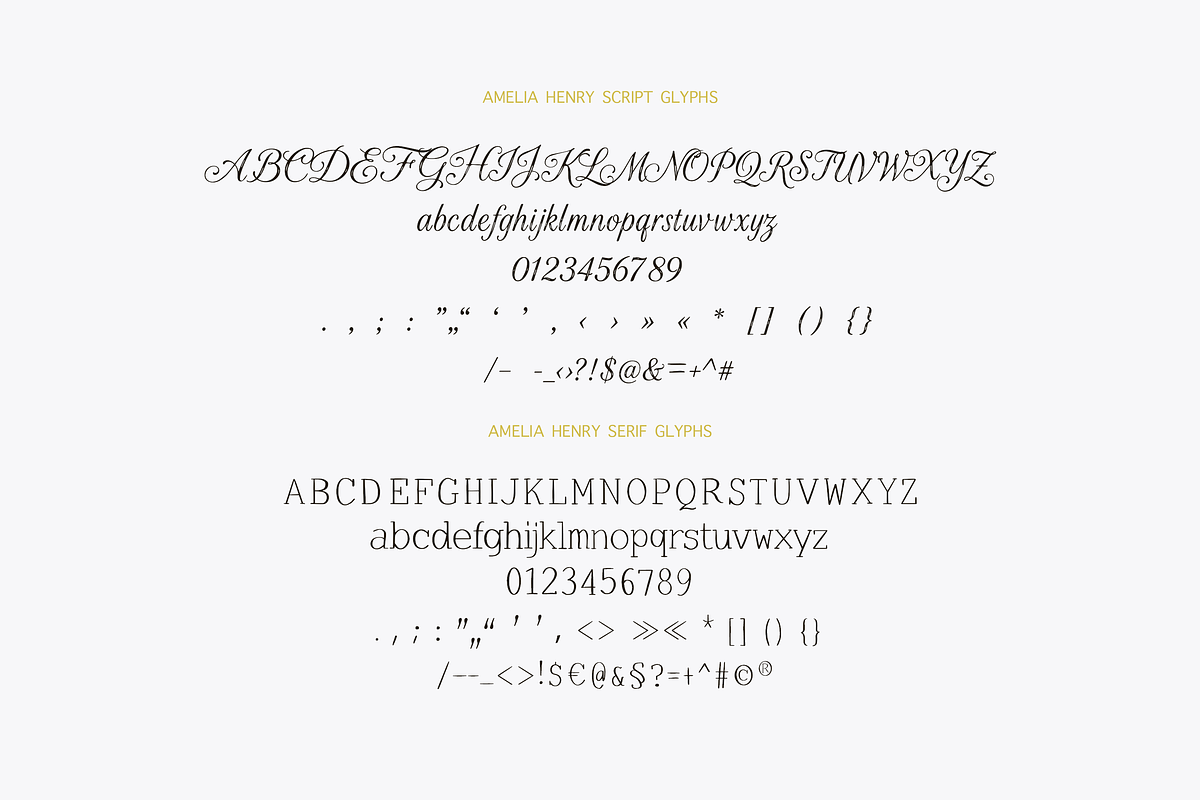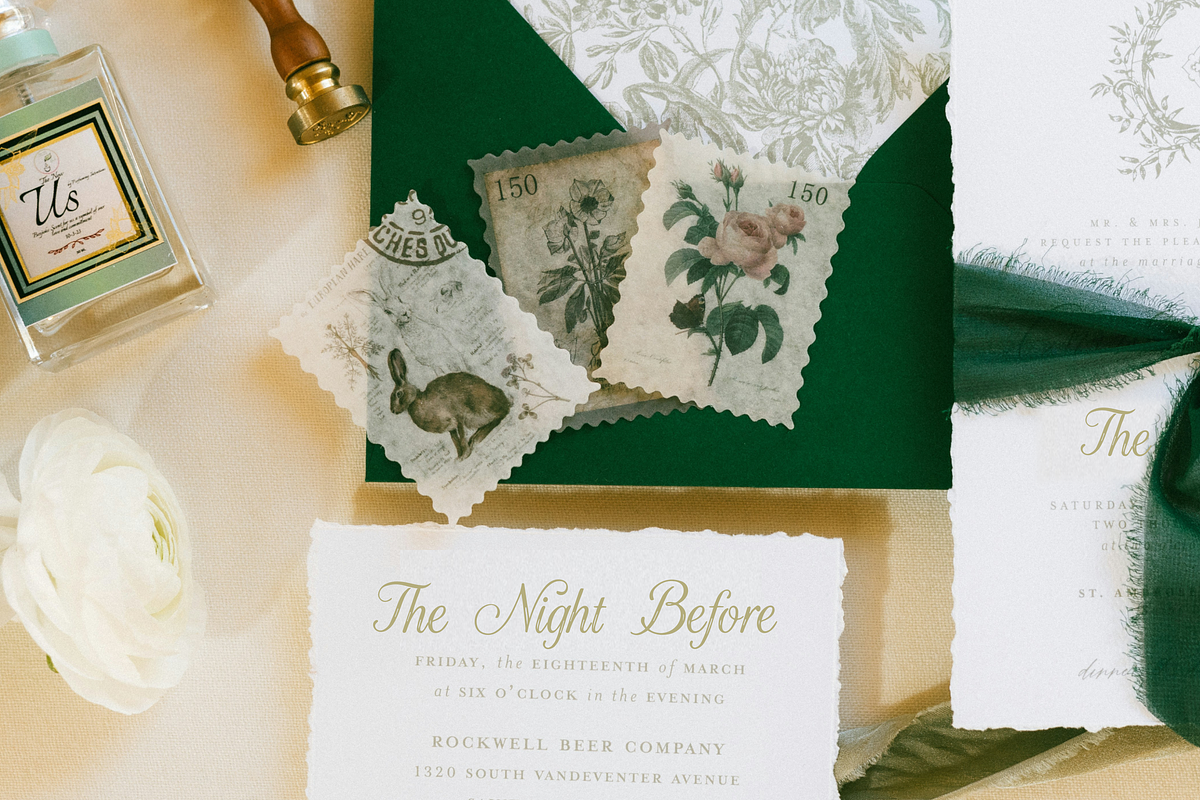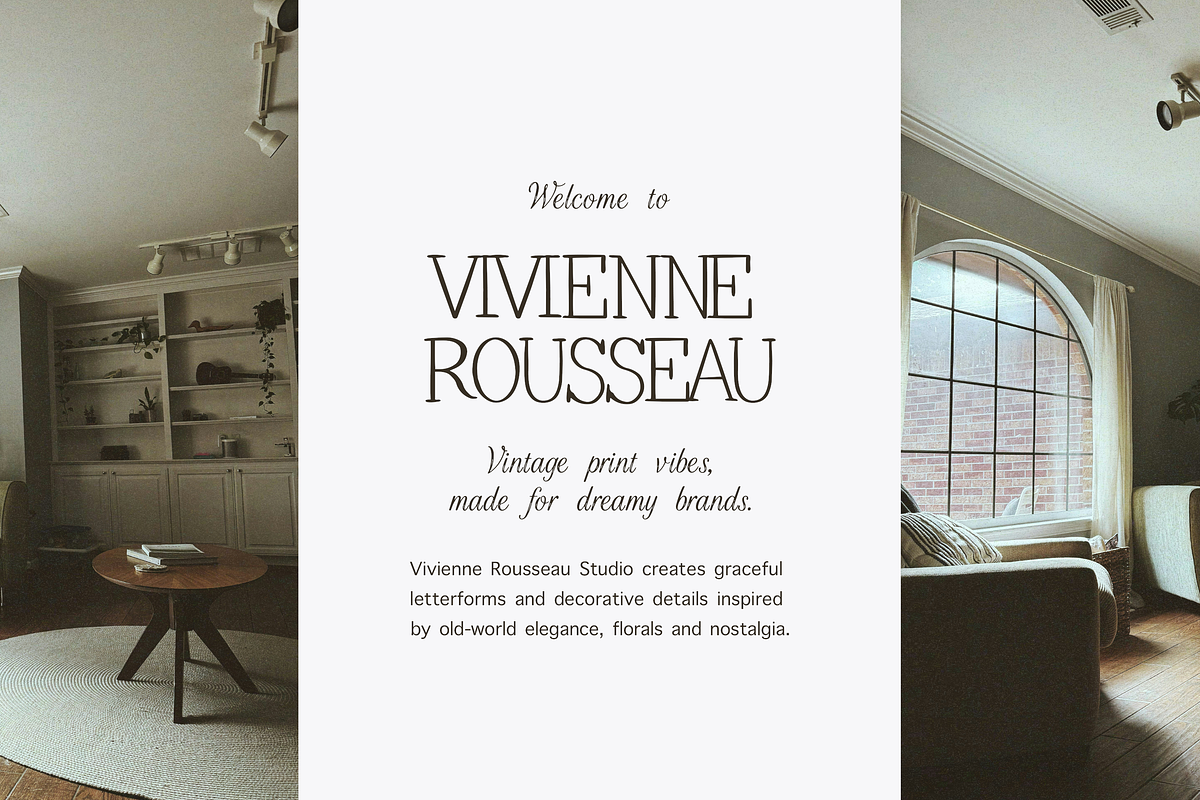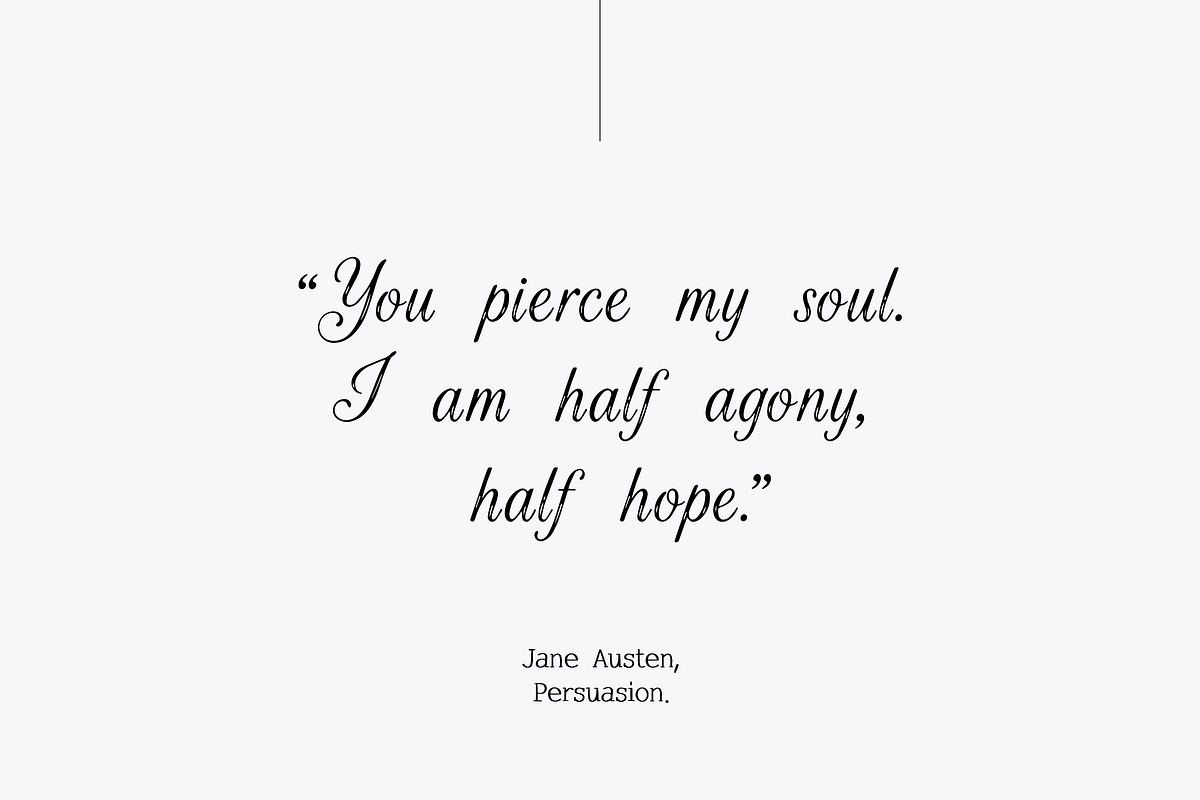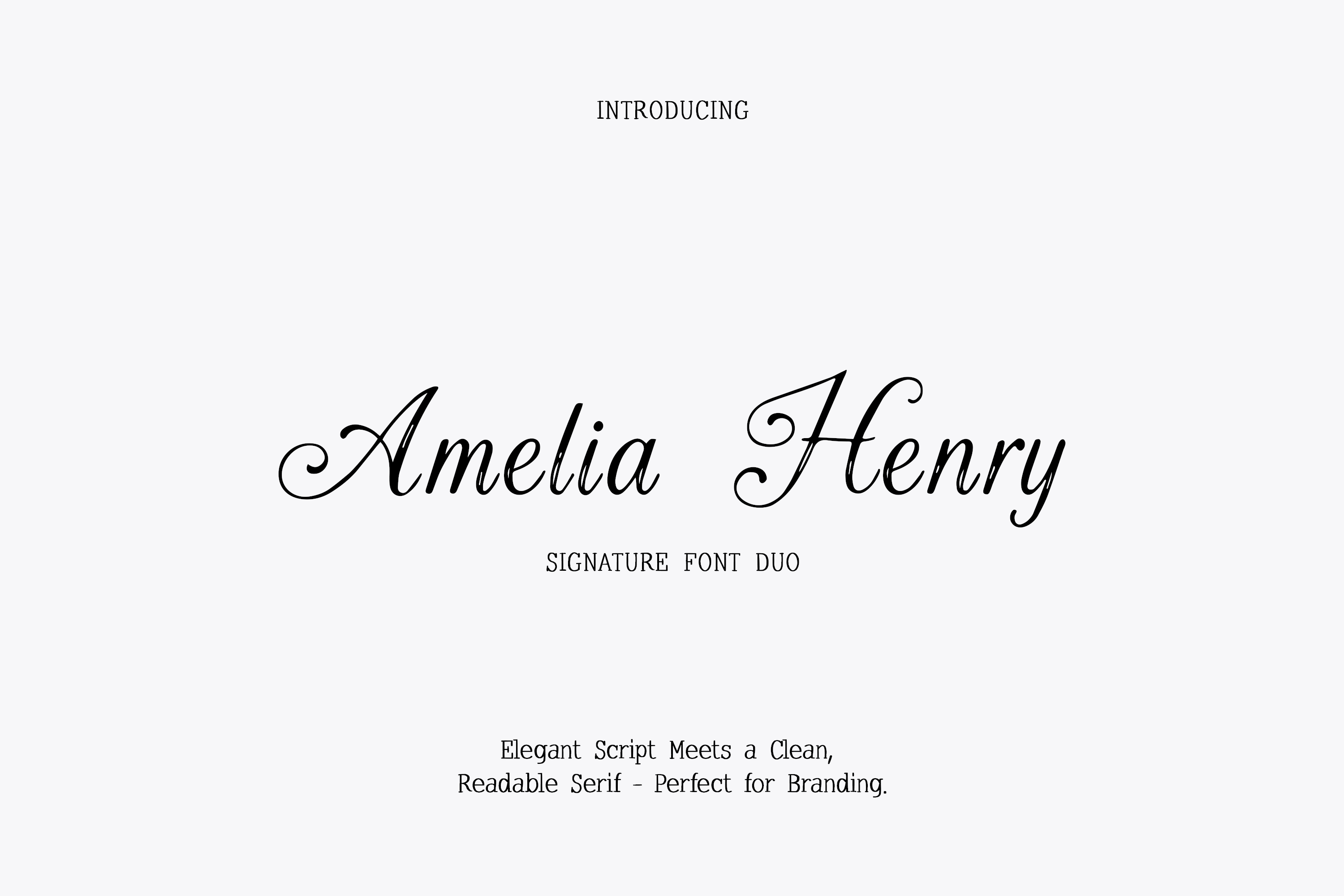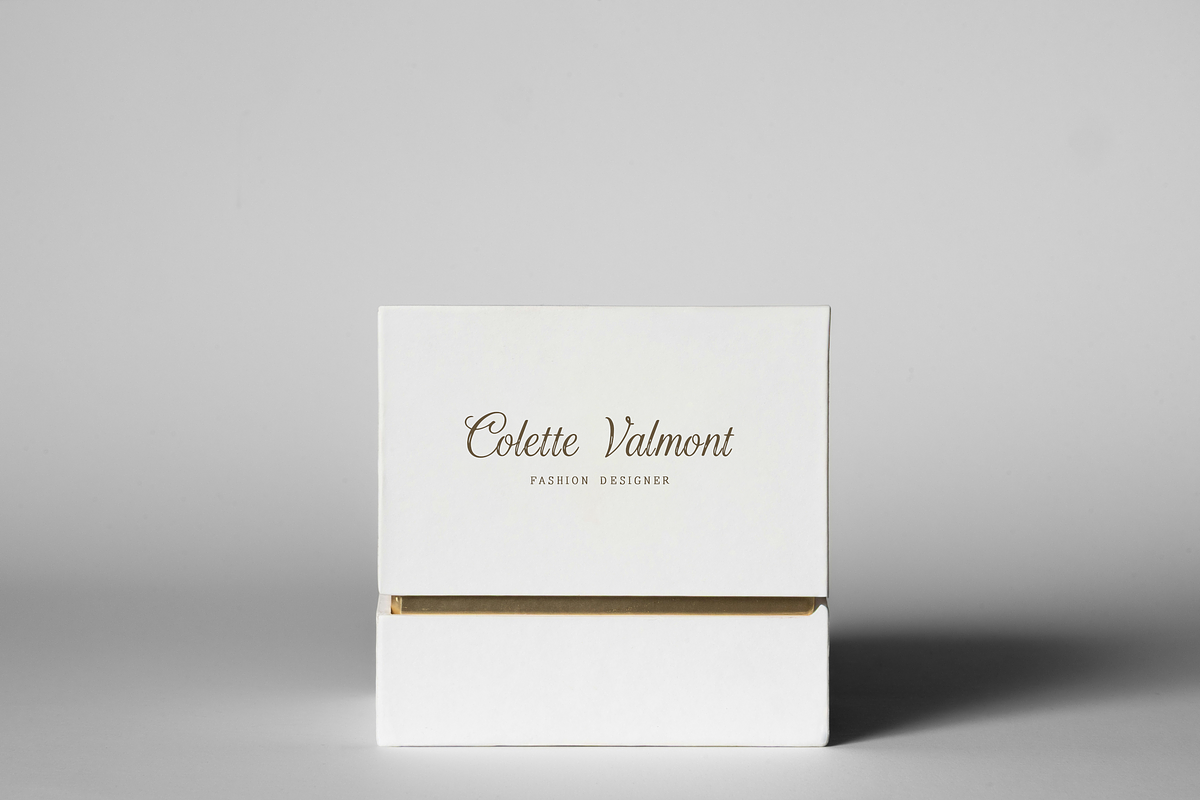
Amelia Henry | Signature Font Duo
Amelia Henry is a refined signature font duo designed to elevate modern branding with timeless elegance. It pairs a graceful calligraphy script with a clean, readable serif - made to complement each other beautifully in logos, packaging, and stationery.
Tip:
Try adjusting the kerning (letter spacing) to set the mood—tighter spacing feels classic and luxurious, while wider spacing looks airy and modern.